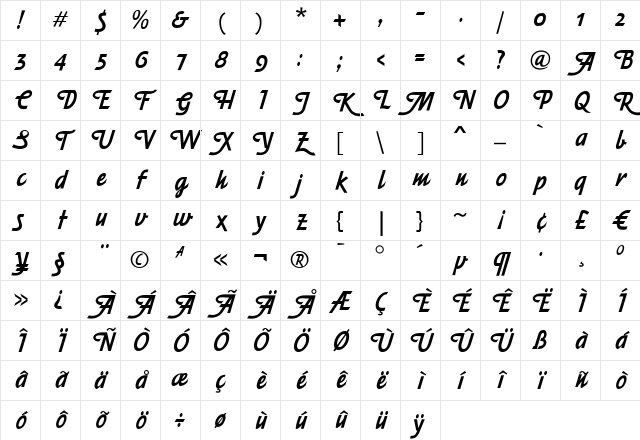
Complete Eveningnews Fancy Regular glyph index. Displaying only characters natively supported by Eveningnews Fancy Regular font.
Eveningnews Fancy is a composed and adaptable typeface that performs quietly and consistently across a wide range of design contexts.
Who designed the Eveningnews Fancy Regular font?